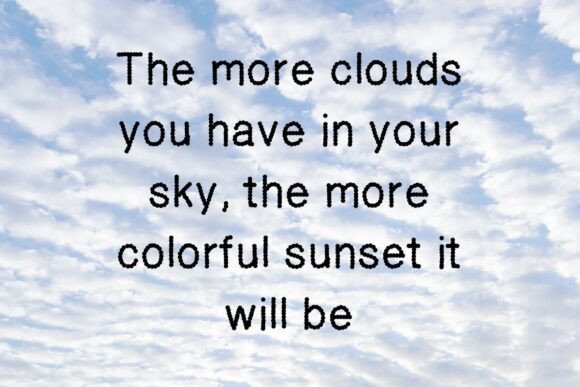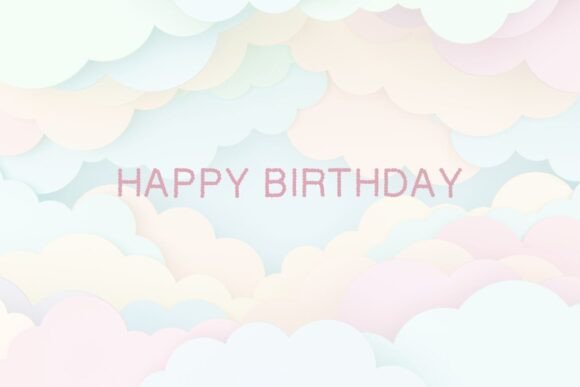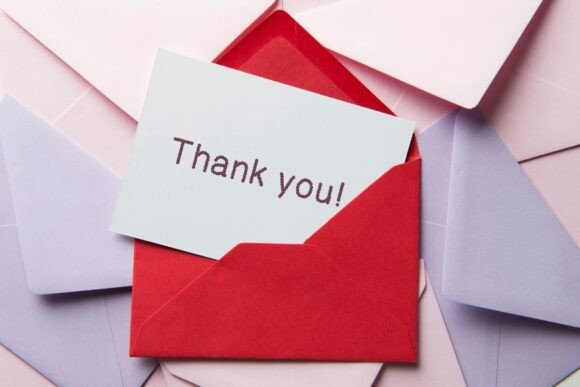
Elevate Your Designs with Cloud Font: The Ultimate Dot-Style Display Font
In the world of design, fonts play a crucial role in conveying the tone and aesthetic of a project. If you’re looking for a font that can add a touch of modernity and whimsy to your designs, look no further than Cloud Font. This unique, dot-style display font is inspired by the soft, ethereal look of clouds, and is crafted entirely from dots to create a sense of depth and texture that will make any design pop.
The Inspiration Behind Cloud Font
Cloud Font is designed to evoke the light, airy feeling of clouds. The font’s creator was inspired by the way clouds can add a sense of drama and texture to the sky, and sought to capture that same feeling in a font. The result is a font that is both modern and artistic, with a subtle, dreamy quality that will add a touch of magic to any design.
Key Features of Cloud Font
So what sets Cloud Font apart from other fonts? Here are a few key features that make it a standout:
- Unique Dot-Style Design: Cloud Font is crafted entirely from dots, creating a sense of depth and texture that is unlike any other font.
- Light, Airy Feel: The font’s light, airy design makes it perfect for adding a touch of modernity to your projects.
- Versatile: Cloud Font is perfect for a wide range of design applications, from logos and posters to social media graphics and invitations.
- Easy to Read: Despite its unique design, Cloud Font is easy to read, making it perfect for use in body text as well as headlines.
Uses for Cloud Font
So what can you use Cloud Font for? The possibilities are endless, but here are a few ideas to get you started:
- Logos: Cloud Font is perfect for creating unique, eye-catching logos that will help your brand stand out.
- Posters: Add a touch of drama and texture to your posters with Cloud Font.
- Social Media Graphics: Use Cloud Font to create eye-catching social media graphics that will help your brand stand out.
- Invitations: Add a touch of whimsy and elegance to your invitations with Cloud Font.
- Creative Branding Materials: Cloud Font is perfect for use in creative branding materials, such as brochures, flyers, and more.
Tips for Using Cloud Font
Here are a few tips for getting the most out of Cloud Font:
- Experiment with Different Sizes: Cloud Font looks great in a variety of sizes, from small and delicate to large and bold.
- Play with Color: Cloud Font looks great in a wide range of colors, from bright and bold to soft and pastel.
- Use it as a Statement Font: Cloud Font is perfect for use as a statement font, adding a touch of drama and texture to your designs.
- Pair it with Other Fonts: Cloud Font pairs well with a wide range of other fonts, making it easy to create unique and interesting typography.
Cloud Font is a unique and versatile font that is perfect for designers and crafters looking to add a touch of modernity and whimsy to their projects. With its light, airy design and dot-style construction, Cloud Font is sure to make any design pop. Whether you’re creating logos, posters, social media graphics, or creative branding materials, Cloud Font is the perfect choice. So why wait? Download Cloud Font today and start elevating your designs to new heights!